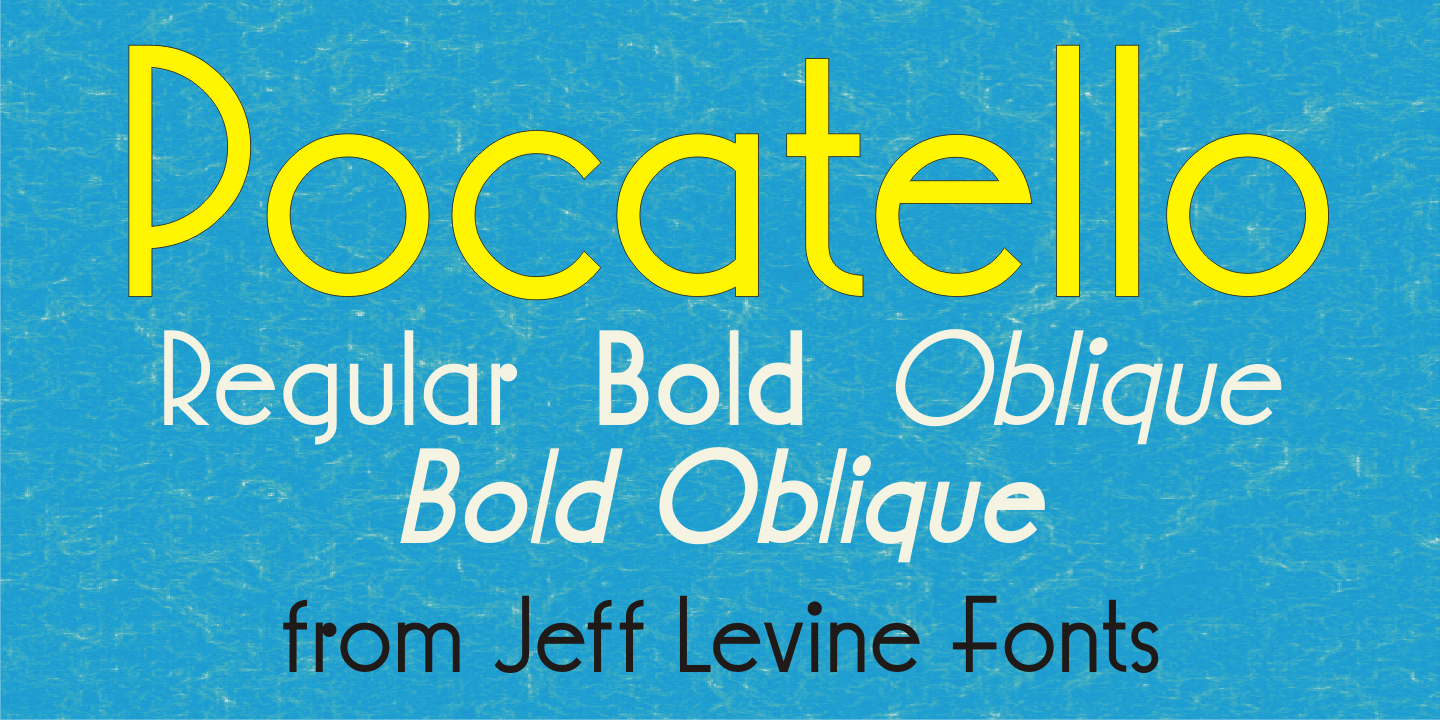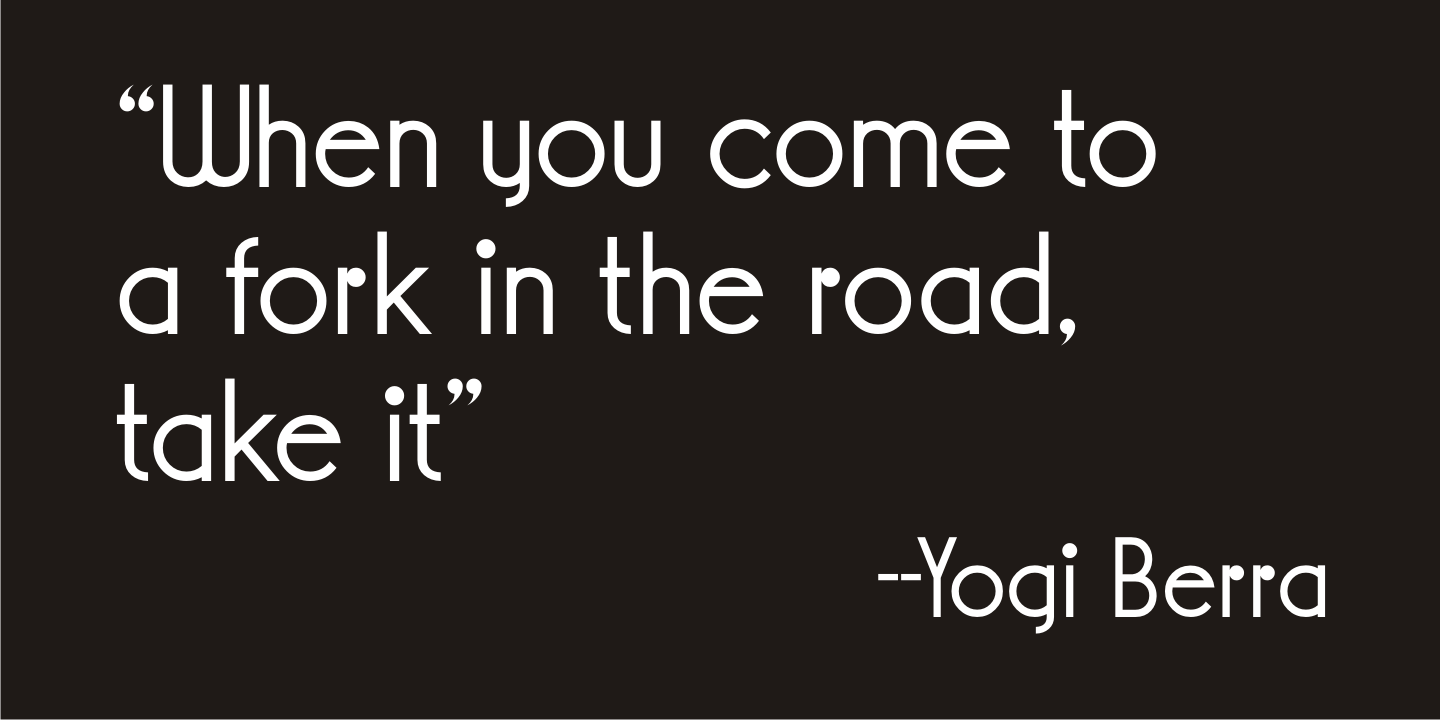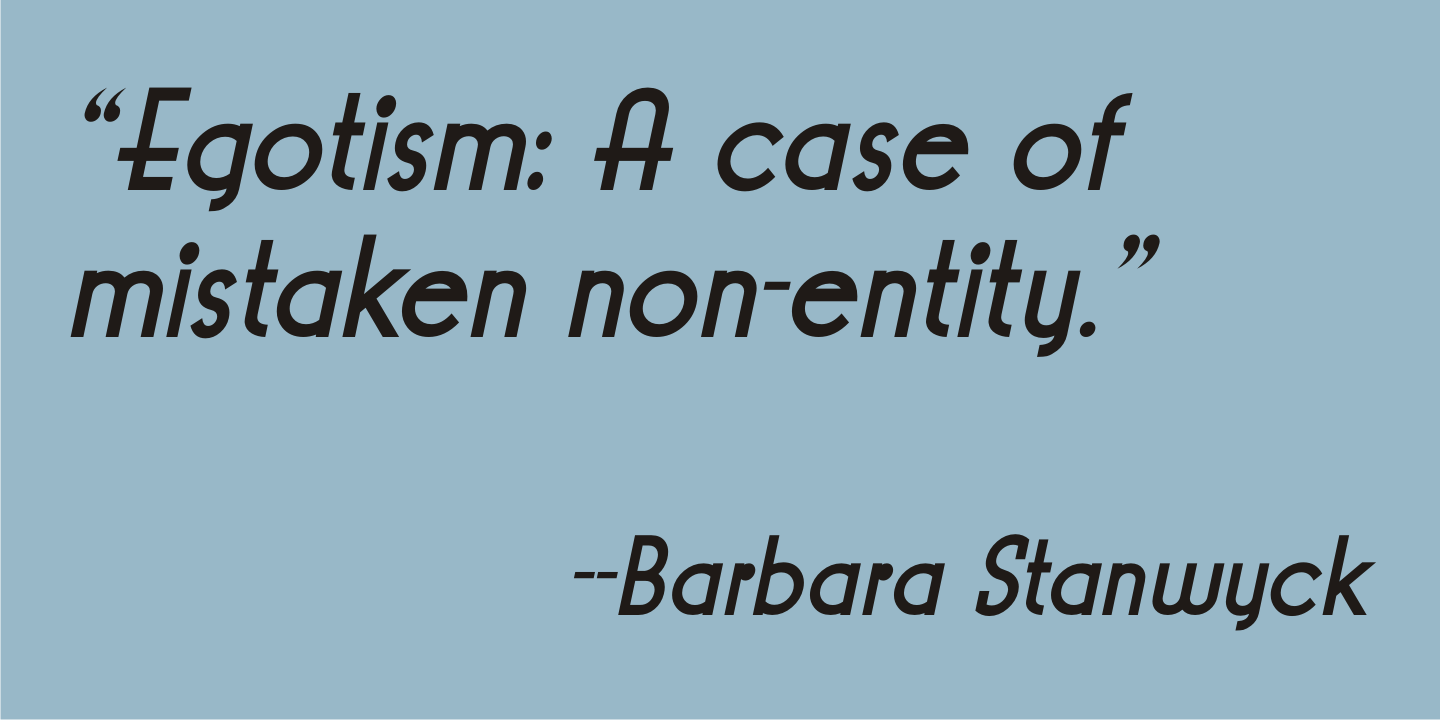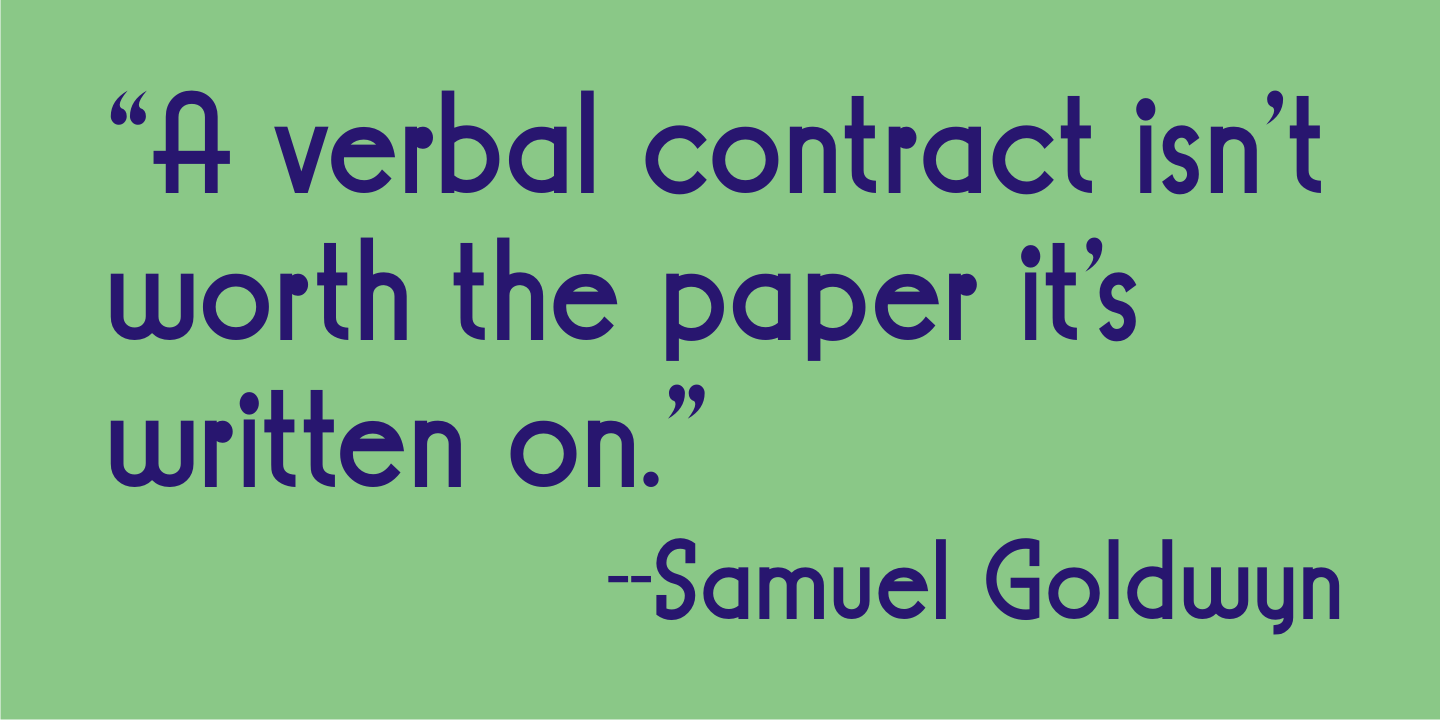
Pocatello
The hand-lettered title, cast and crew credits for 1943's 'Presenting Lily Mars' (starring Judy Garland and Van Heflin) inspired Pocatello JNL, but the name of this typeface has another Judy Garland connection.
In the 1954 remake of 'A Star is Born', Judy sings of being born in a trunk in a theater located in Pocatello, Idaho. The name of this Midwest town had such a great sound to it, so it was the perfect choice for the font's name.
Available in regular,oblique, bold and bold oblique versions.